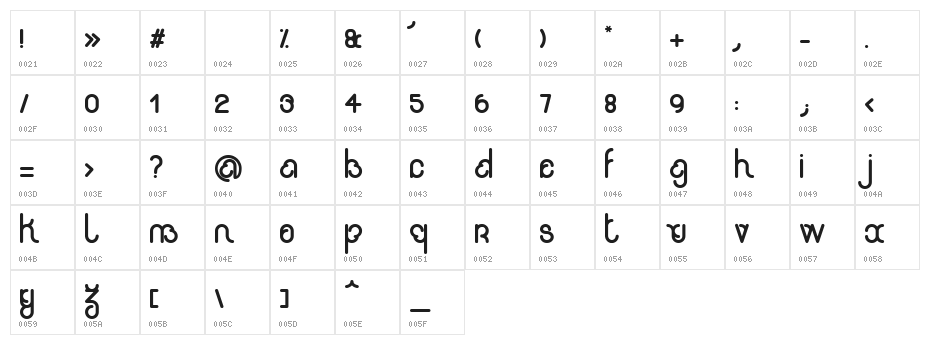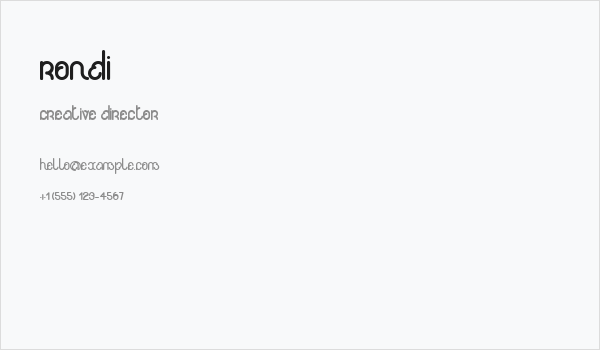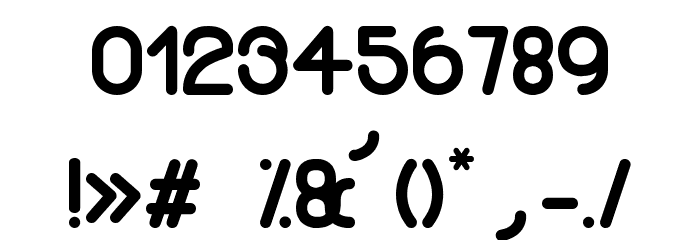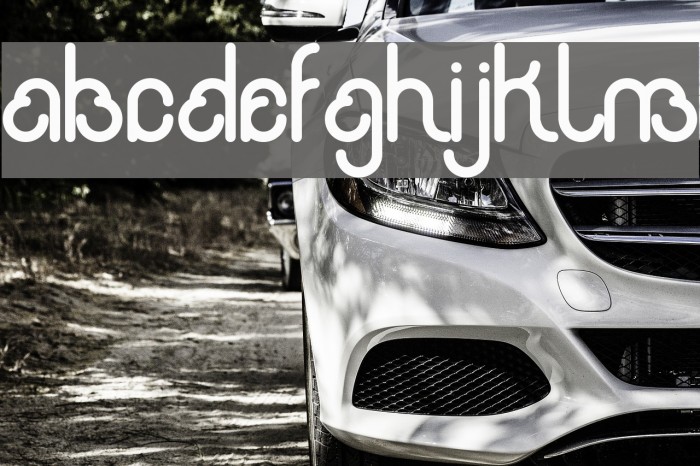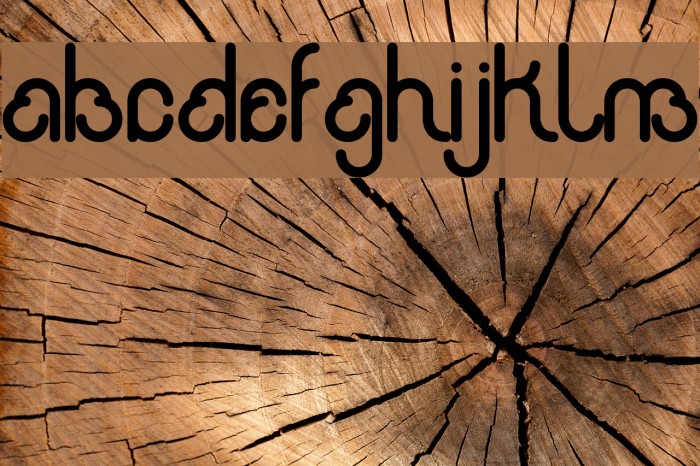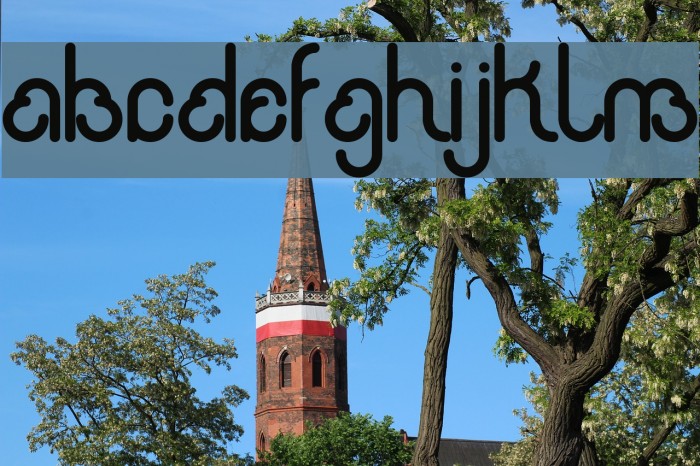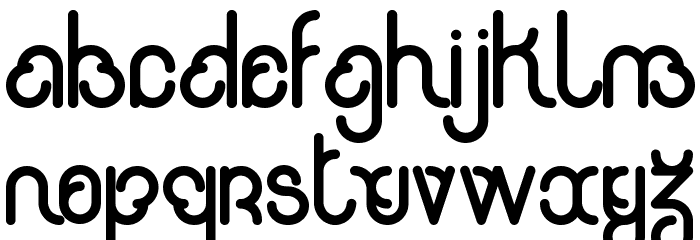
rondi Font
rondi Description
This font features a unique, rounded design with a playful and modern aesthetic. The characters are bold and have a consistent thickness throughout, giving them a strong presence on the page. The rounded edges and smooth curves create a friendly and approachable look, making it ideal for creative and informal projects. The numbers and special characters maintain the same stylistic approach, ensuring uniformity across different uses. The font's distinct style makes it stand out, while its readability remains intact, even at smaller sizes.
| Use Case | Logos, Headlines, Posters |
| Proposed Projects | Ideal for branding, children's books, playful posters, and creative digital content. |